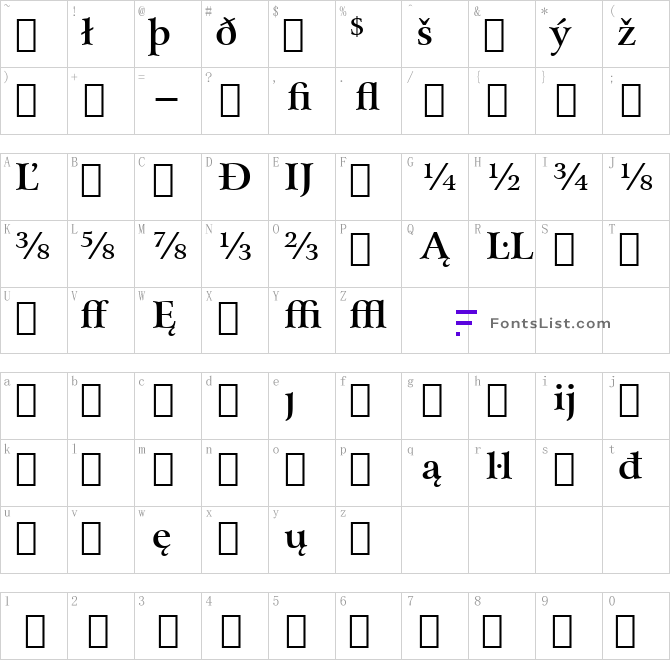
- Font Name:Arrus Ext BT
Arrus-Ext-BT-Bold-Extension.ttf is a very beautiful artistic font, Arrus-Ext-BT-Bold-Extension.ttf is widely used in the design and printing of various books and pictures,Arrus-Ext-BT-Bold-Extension.ttf has a strong visual impact,Arrus-Ext-BT-Bold-Extension.ttf is a commonly used font in newspapers, magazines and books, and is used in posters, e-commerce Poster design, store design, logo design, font design and other fields.Arrus-Ext-BT-Bold-Extension.